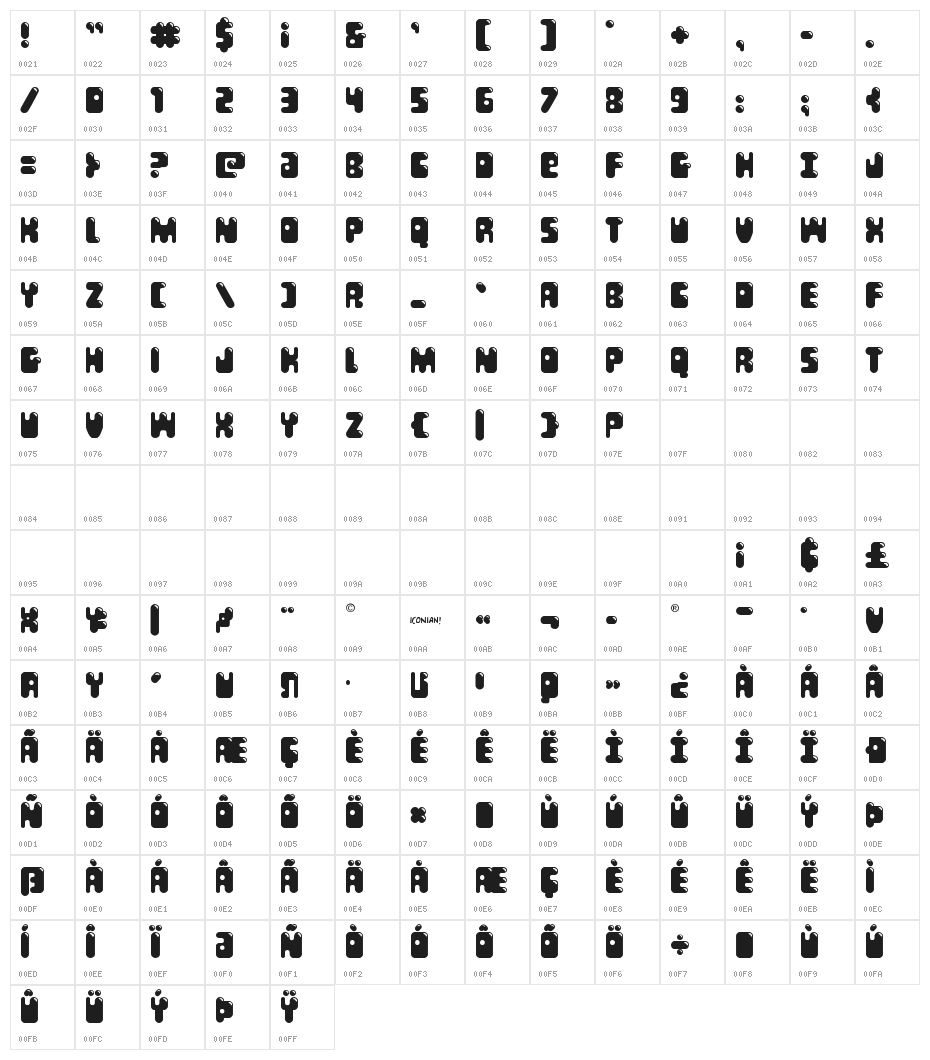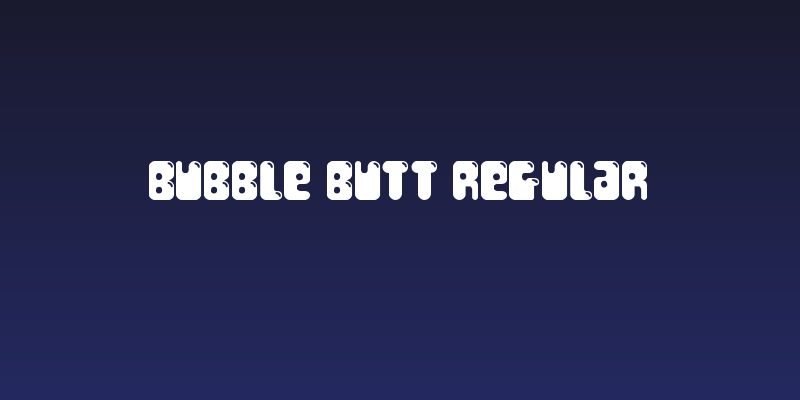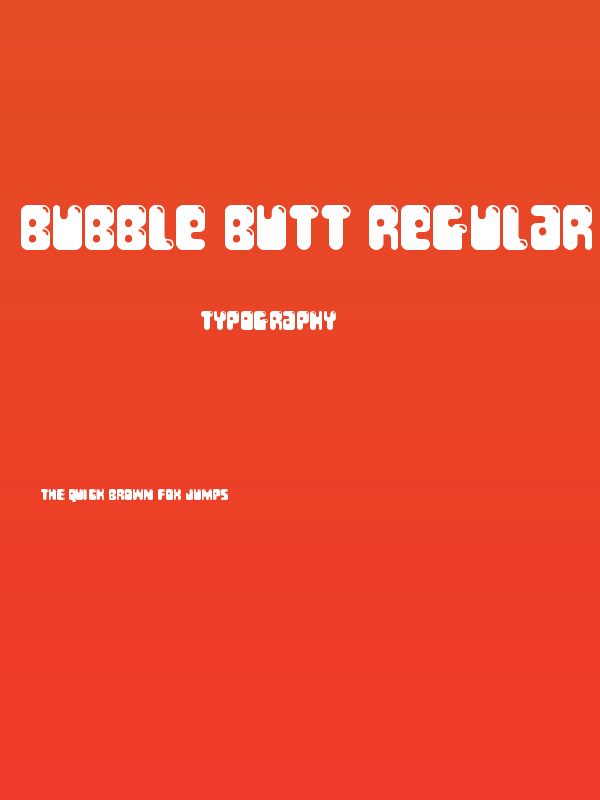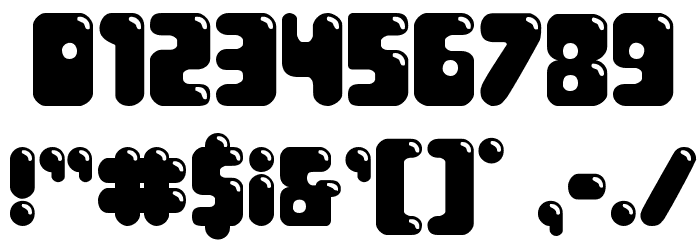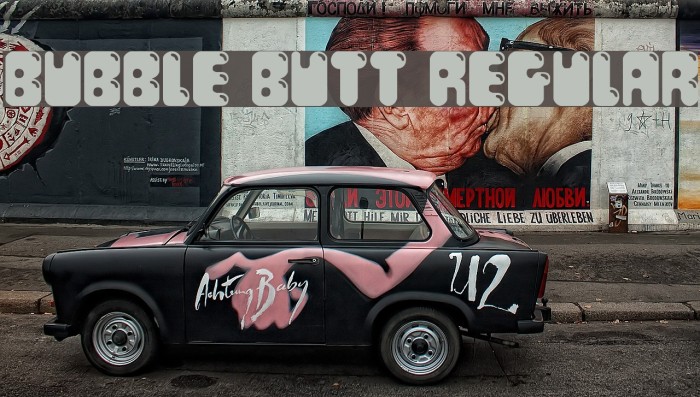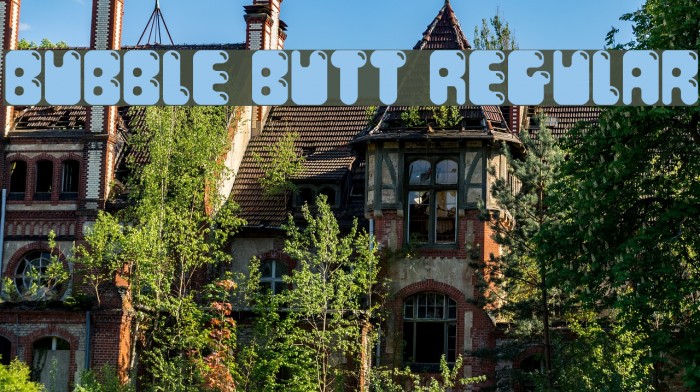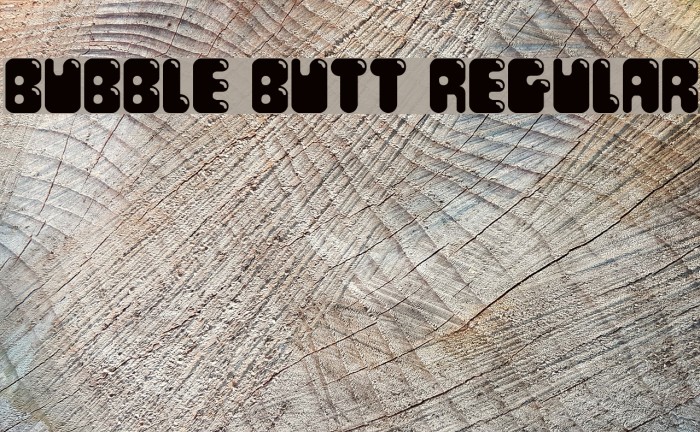
Bubble Butt Regular Font
Bubble Butt Regular Description
This playful and bold font features rounded, bubble-like characters that exude a sense of fun and whimsy. The letters are thick and substantial, with a consistent stroke width that gives them a solid appearance. Each character has a unique, bubbly design with small circular cutouts, adding a touch of quirkiness. The font maintains a uniform height across all characters, ensuring a balanced and cohesive look. Its distinctive style makes it stand out, making it ideal for creative and informal projects. The numbers and special characters follow the same design principles, ensuring consistency throughout the font set.